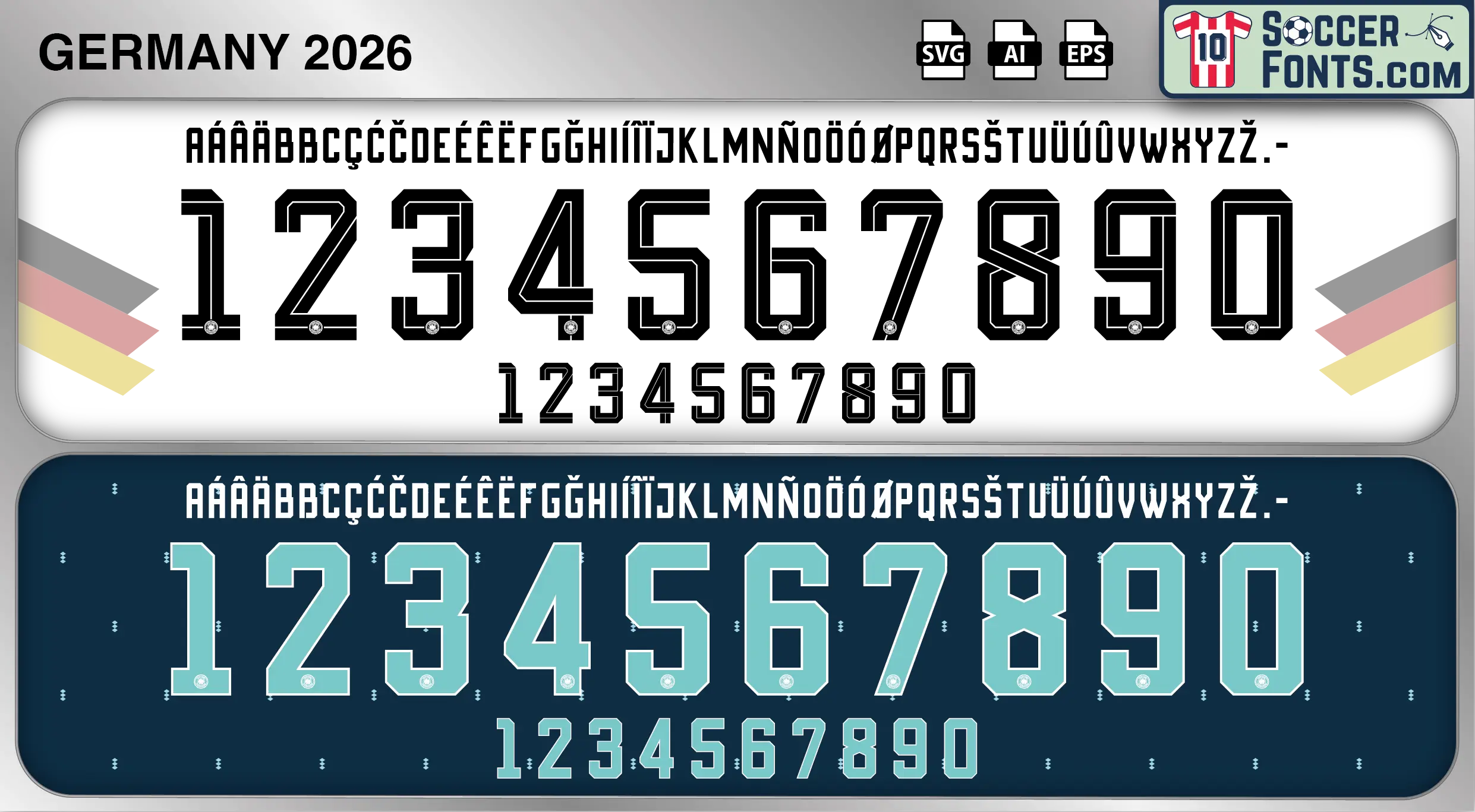
Germany 2026 World Cup Font
The Germany 2026 World Cup font is an editable soccer jersey lettering design in vector format inspired by the Germany kit style used during the 2026 FIFA World Cup. This football font artwork is prepared for football shirt recreations, custom jersey projects, football kit mockups and sports graphic design workflows.
The Germany 2026 World Cup font became associated with Germany’s latest pursuit of football’s most prestigious trophy and a generation seeking to create its own place in national team history. Germany shirts from this World Cup cycle are expected to become highly collectible among supporters, football shirt enthusiasts and designers because of their connection with one of the sport’s most recognizable national teams. The Germany 2026 World Cup font reflects the continuing evolution of German football while preserving the heritage, identity and competitive culture that have made Germany a global football powerhouse for generations.